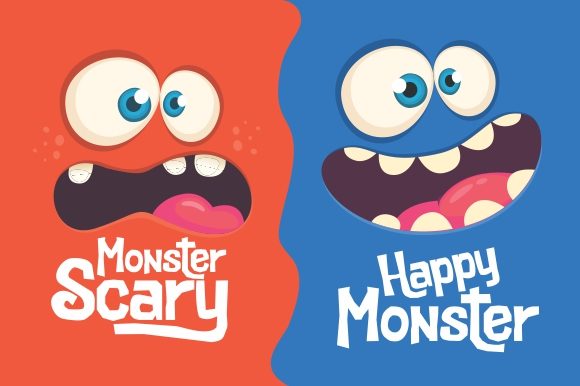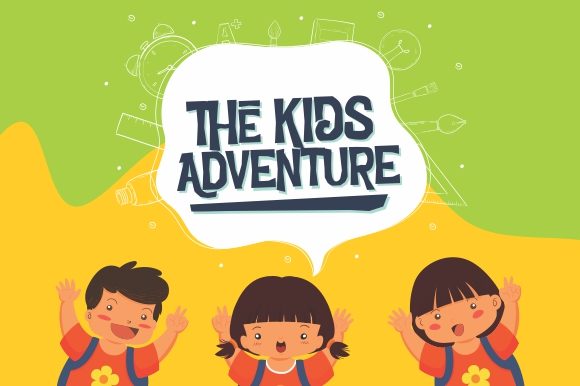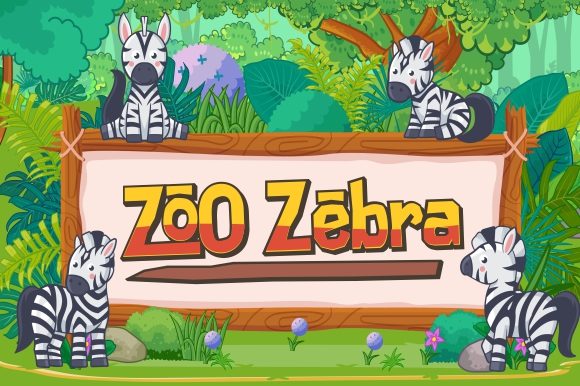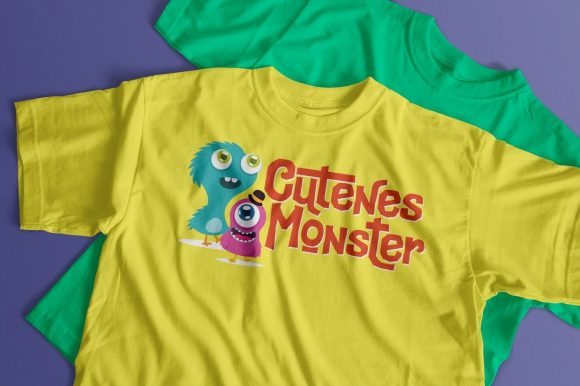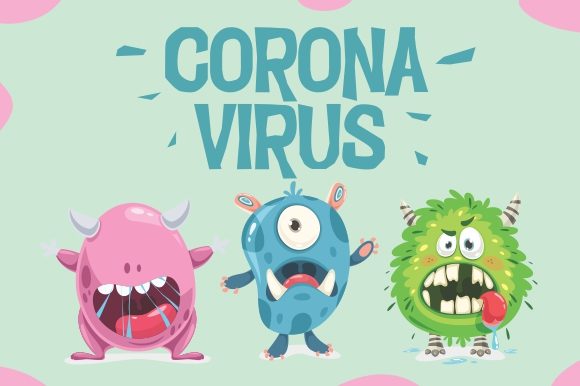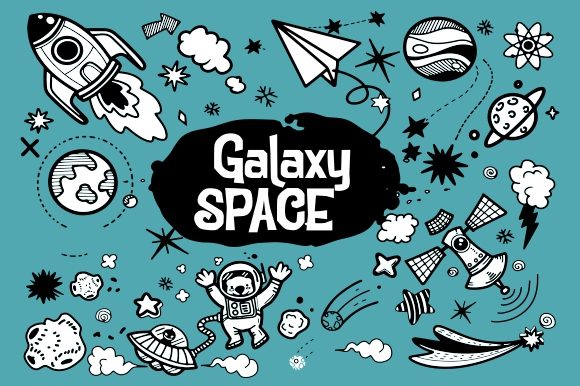
Cutenes Monster Font: Unleashing Fun and Quirkiness in Typography
In the world of typography, fonts play a crucial role in conveying the tone and personality of a design. For designers and crafters looking to add a touch of fun, quirkiness, and authenticity to their creative projects, the Cutenes Monster Font is an excellent choice. This enchanting display font is designed to turn any idea into a true standout, making it perfect for those who want to make a statement.
The Essence of Cutenes Monster Font
Cutenes Monster embodies the perfect blend of fun, quirkiness, and authenticity. Its unique design is sure to capture the attention of your audience and leave a lasting impression. Whether you’re working on a branding project, creating social media graphics, or designing merchandise, this font is guaranteed to add a dash of personality to your work.
Key Features of Cutenes Monster Font
- Unique and Quirky Design: The Cutenes Monster Font boasts a one-of-a-kind design that is sure to make your project stand out from the crowd.
- Enchanting Display Font: Perfect for headlines, titles, and short phrases, this font is designed to grab attention and add a touch of magic to your design.
- Fun and Authentic: The Cutenes Monster Font is all about having fun and being true to yourself. It’s the perfect choice for designers and crafters who want to inject some personality into their work.
- Versatile: Whether you’re working on a digital project or a physical one, this font is versatile enough to be used in a variety of applications.
Use Cases for Cutenes Monster Font
The Cutenes Monster Font is perfect for a wide range of design projects, including:
- Branding and Logo Design: Add a touch of fun and quirkiness to your brand’s identity with this unique font.
- Social Media Graphics: Make your social media posts stand out with the Cutenes Monster Font.
- Merchandise Design: Create eye-catching merchandise, such as t-shirts, mugs, and tote bags, with this enchanting font.
- Invitations and Party Decor: Add a touch of whimsy to your party invitations and decor with the Cutenes Monster Font.
Tips for Using Cutenes Monster Font
To get the most out of the Cutenes Monster Font, here are a few tips to keep in mind:
- Use it as a Display Font: The Cutenes Monster Font is designed to be used as a display font, so use it sparingly to add emphasis to your design.
- Experiment with Colors: Don’t be afraid to experiment with different colors to add an extra layer of personality to your design.
- Pair it with Other Fonts: Try pairing the Cutenes Monster Font with other fonts to create a unique and visually appealing combination.
| Font Name | Cutenes Monster Font |
| Author | EKNOJI |
In conclusion, the Cutenes Monster Font is a unique and enchanting display font that embodies fun, quirkiness, and authenticity. With its versatile design and wide range of use cases, it’s perfect for designers and crafters looking to add a touch of personality to their creative projects. So why not give it a try and see how it can transform your design?